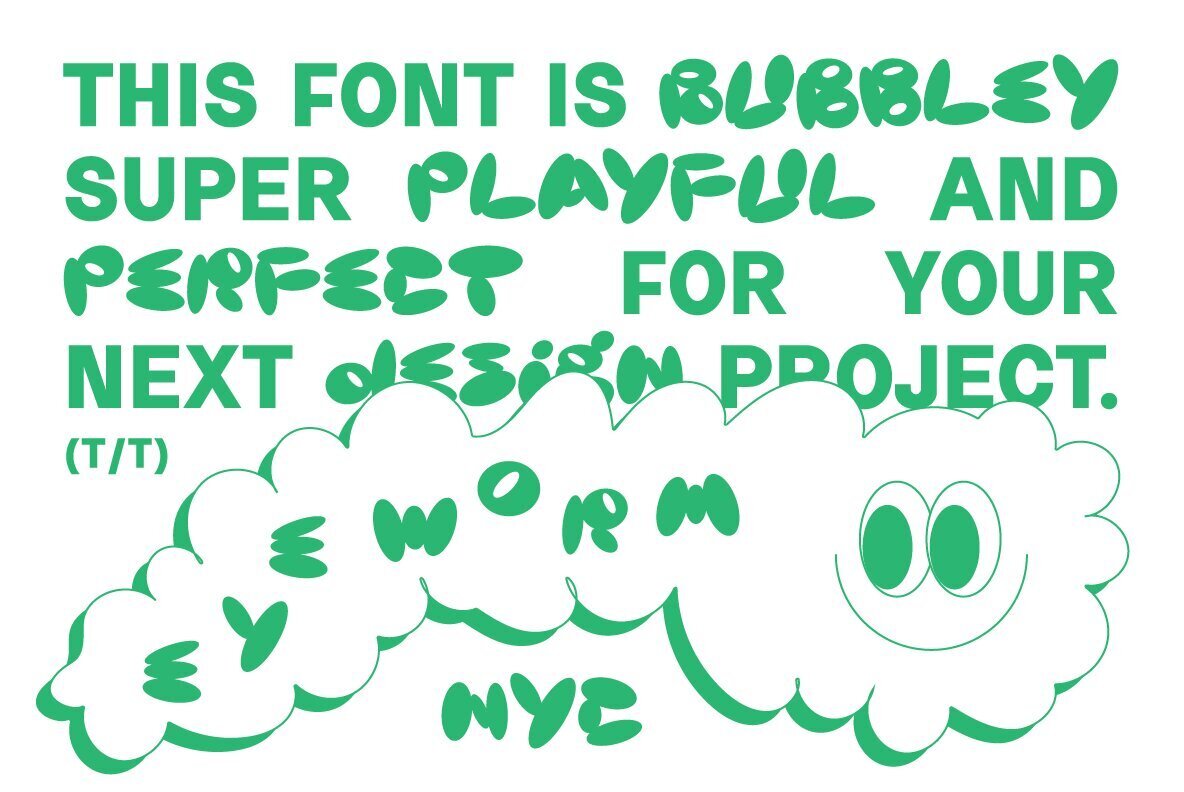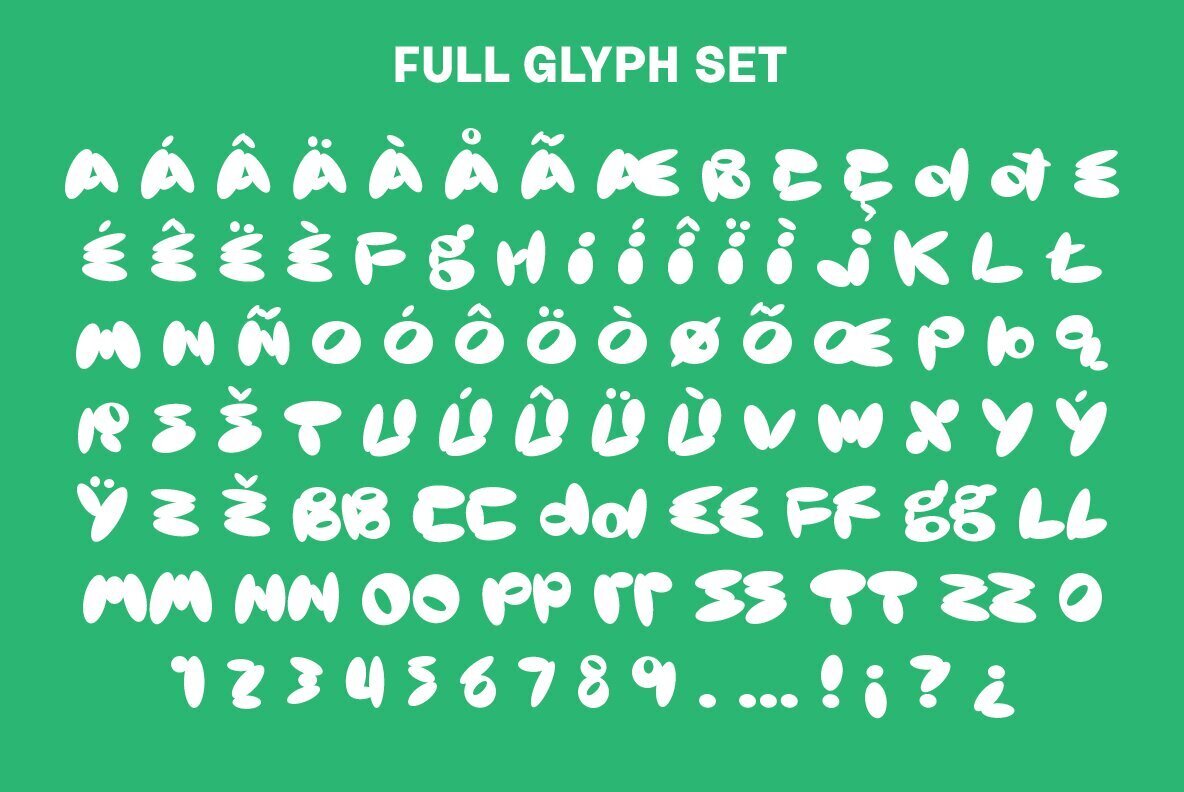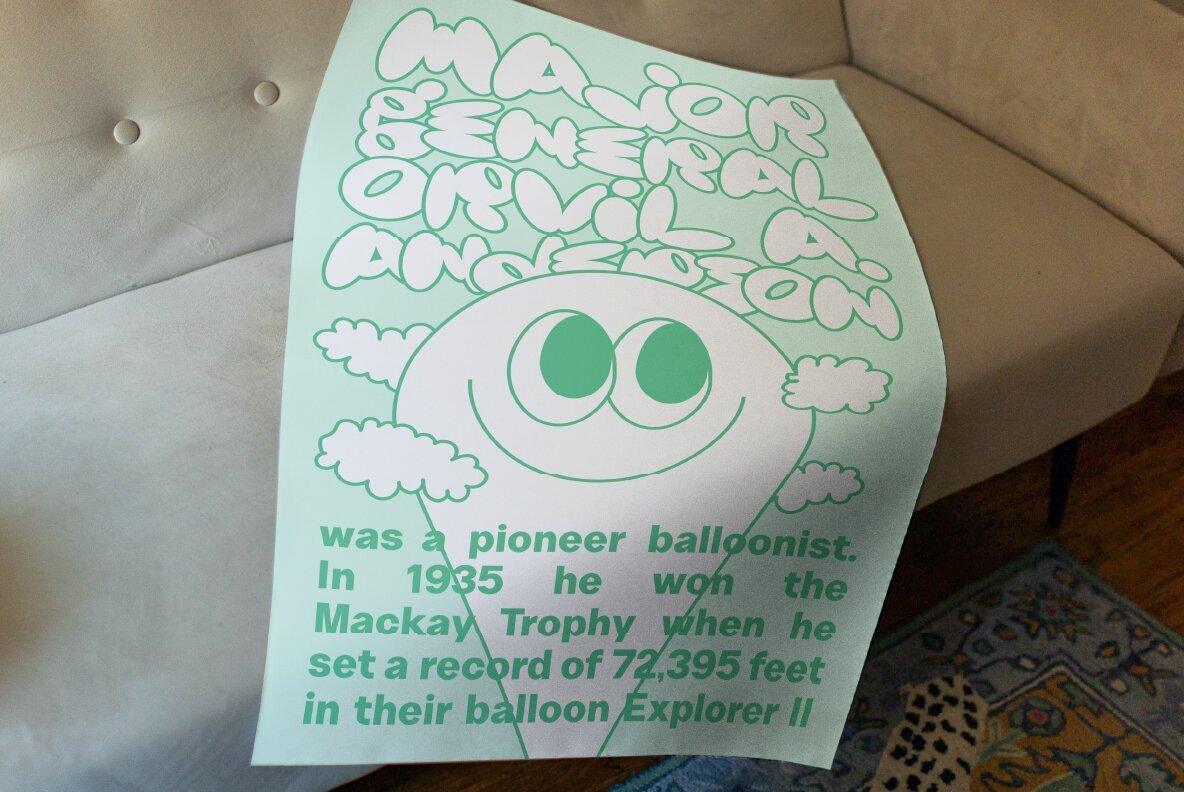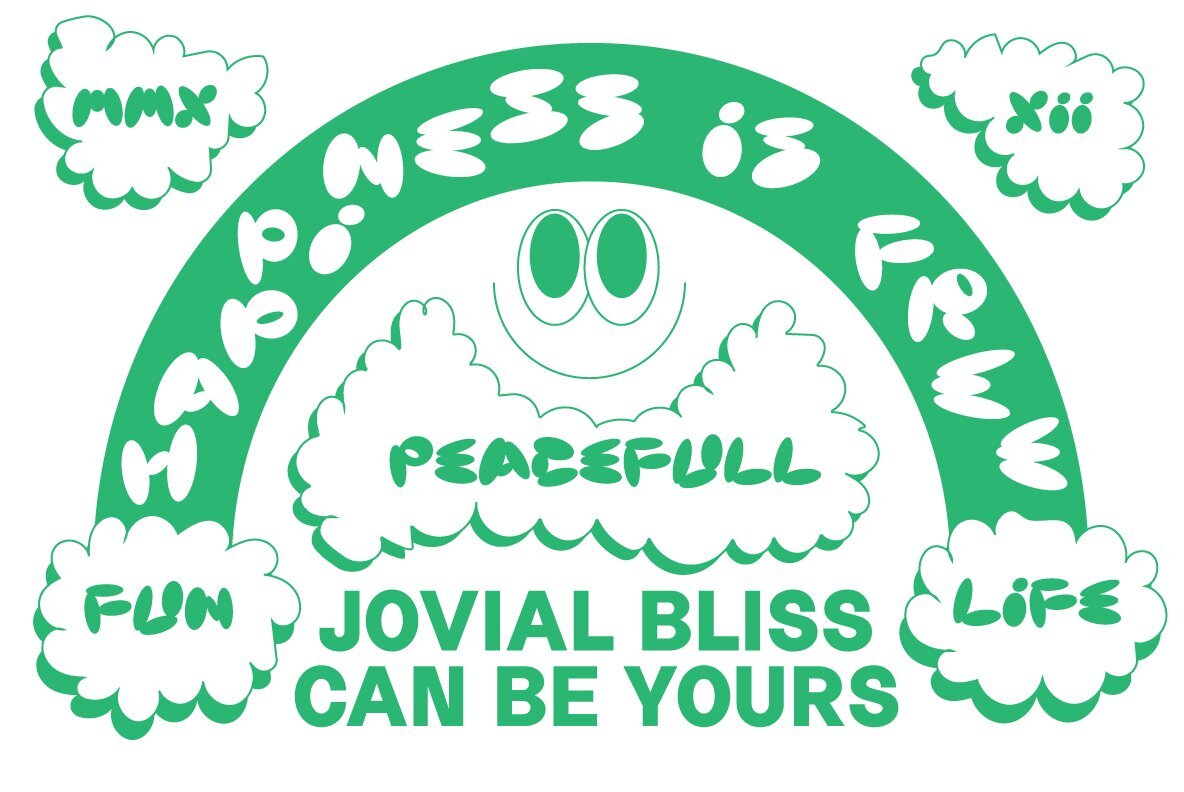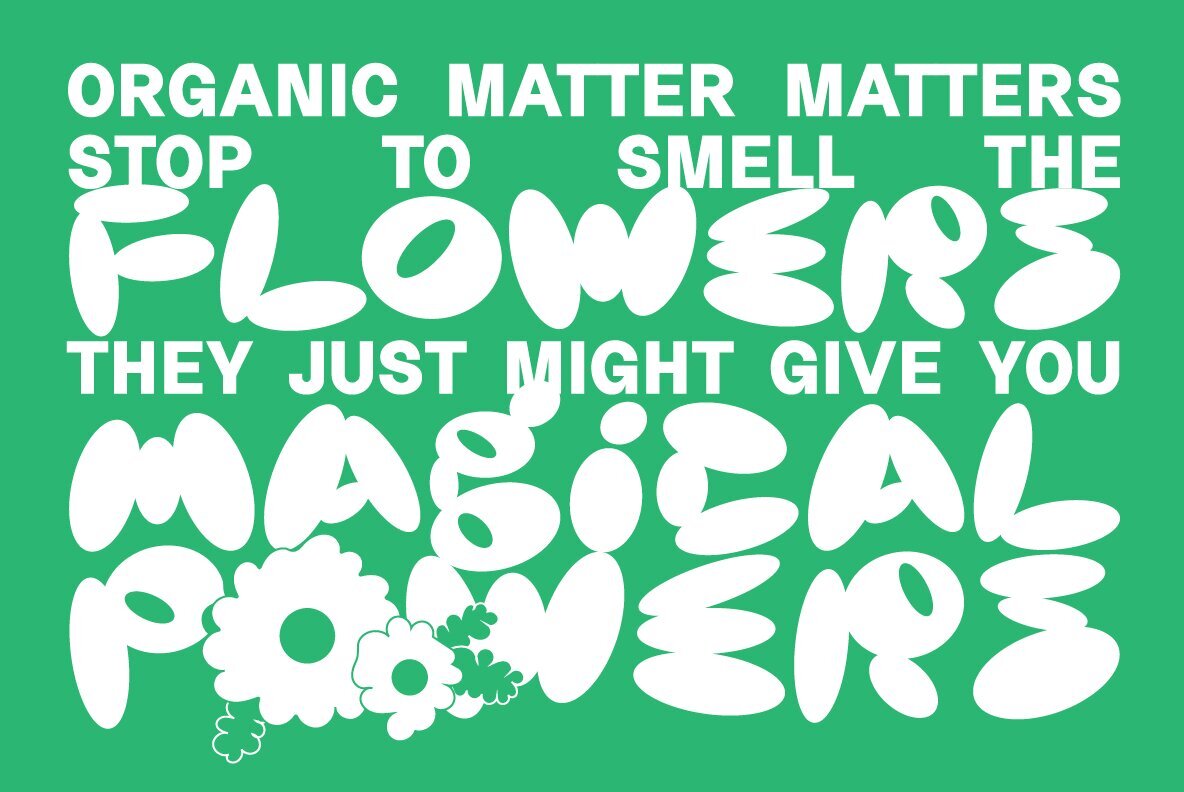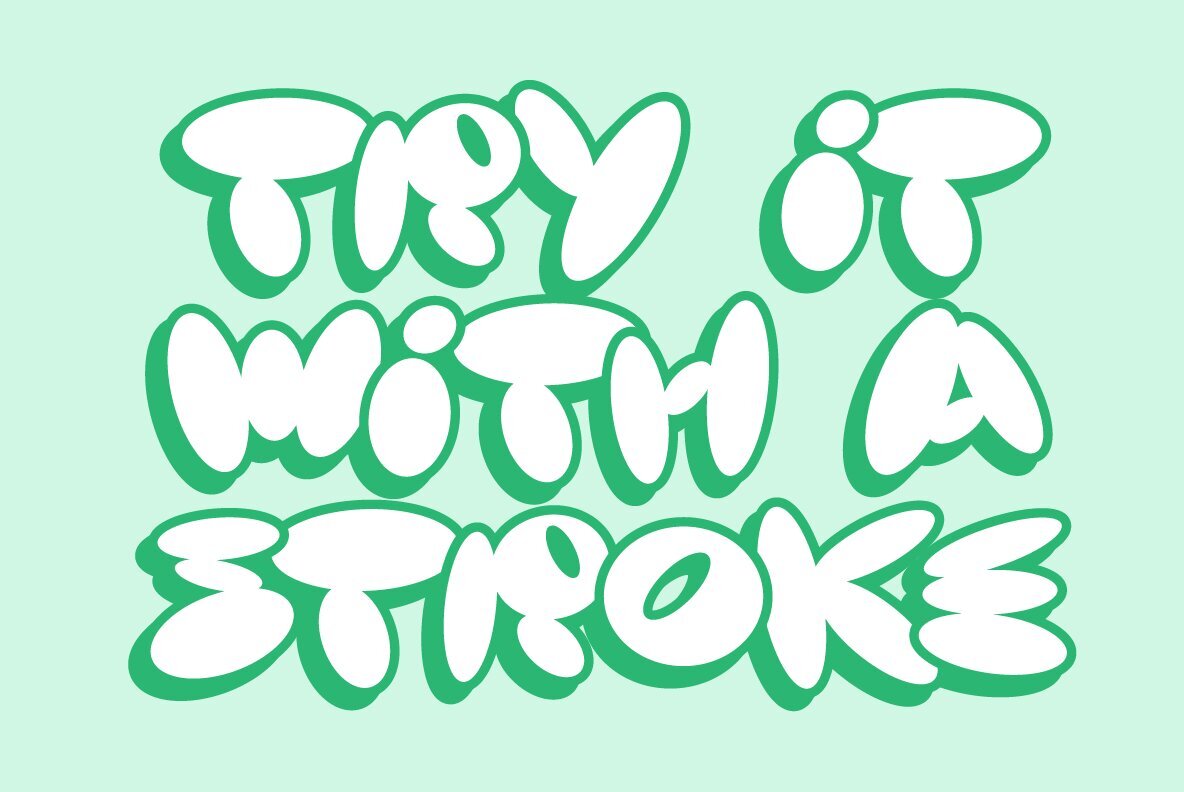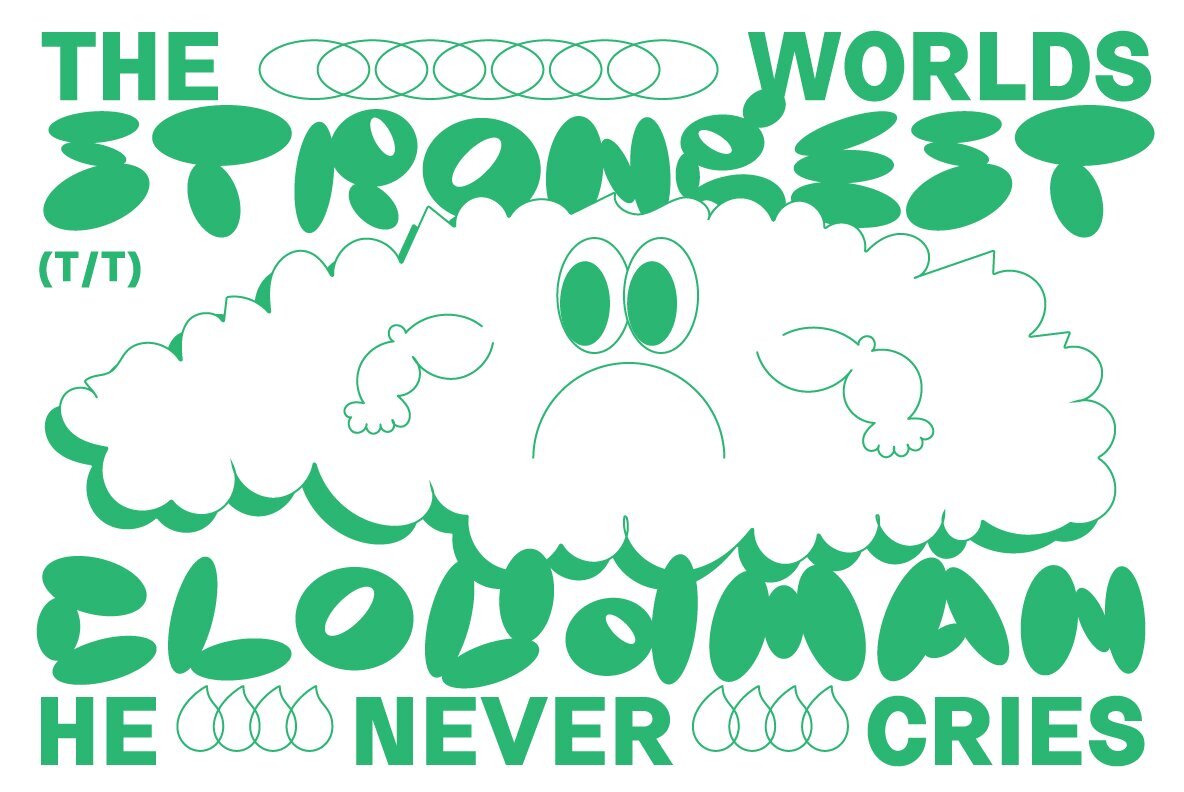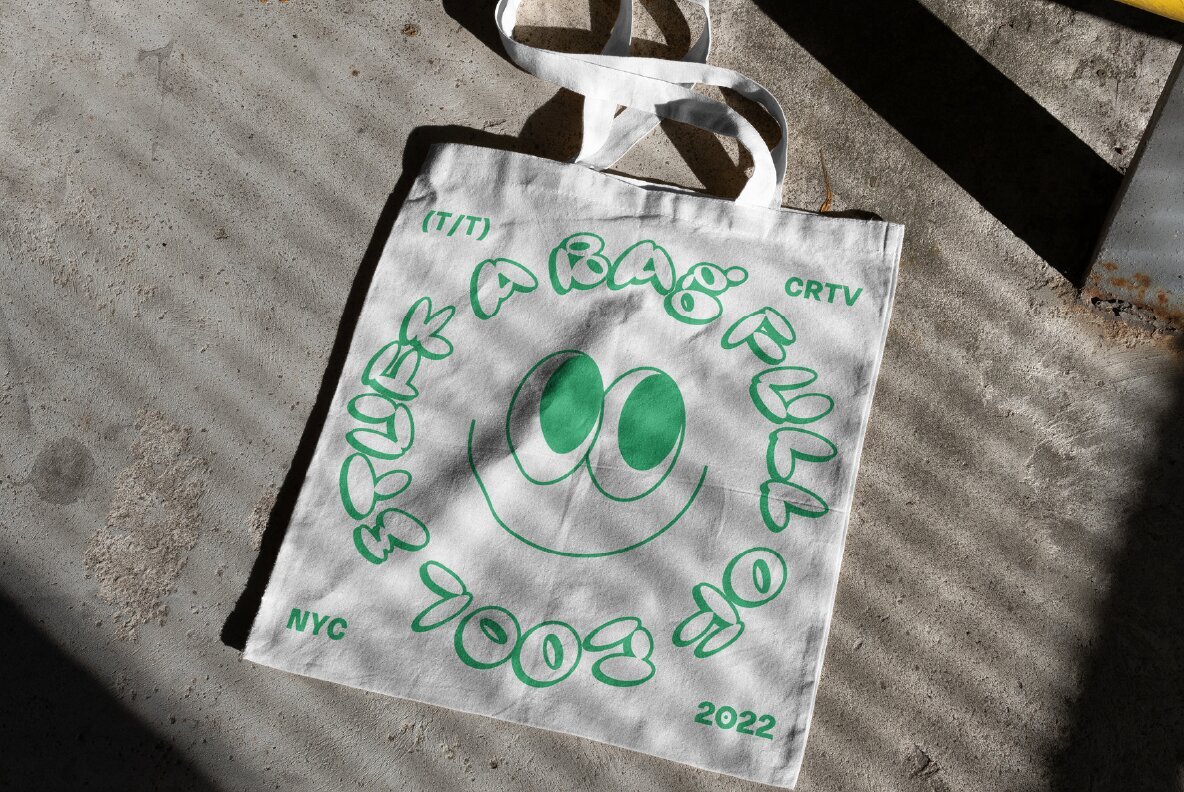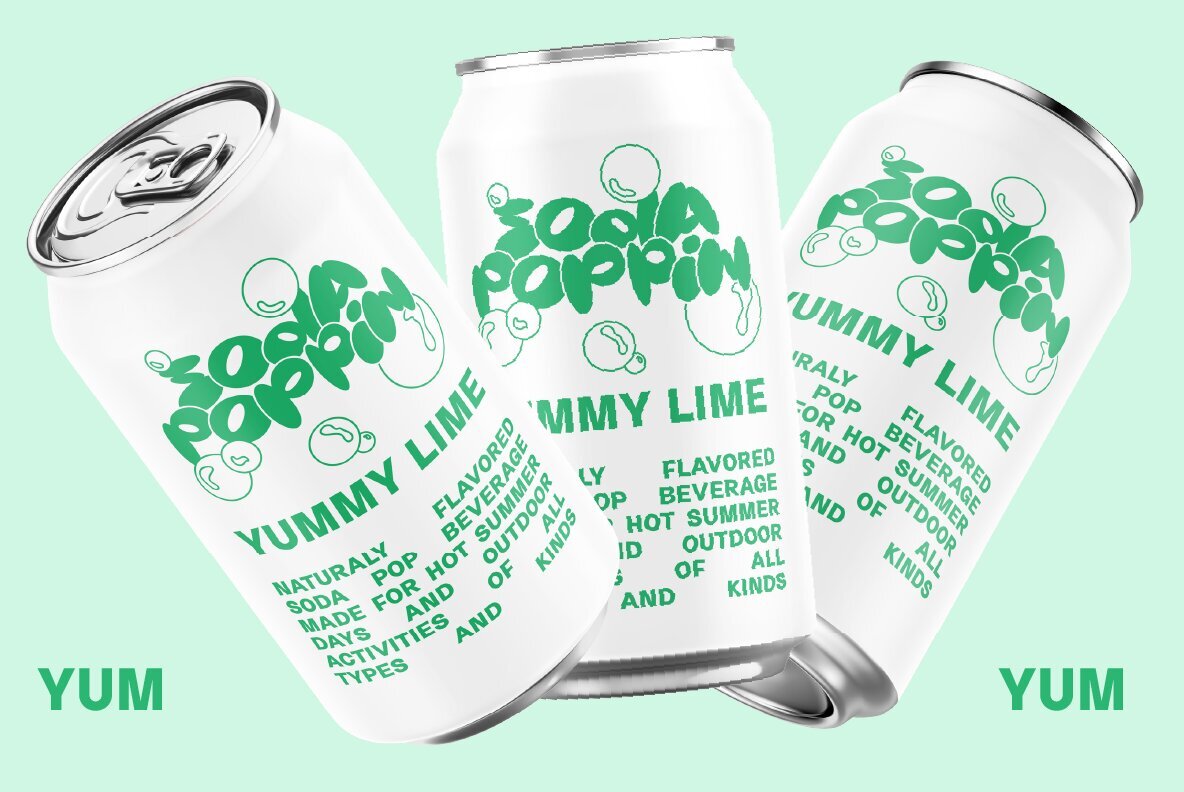
Orvil Font
Orvil Regular
Orvil Bubble font is the perfect choice to add some zing and life into your next design project, whether it be for advertising or something more personal like posters. This bold modern display typeface has all of those little details that you need in order make sure everything looks interesting while still being professional enough so people will know what they're looking at!